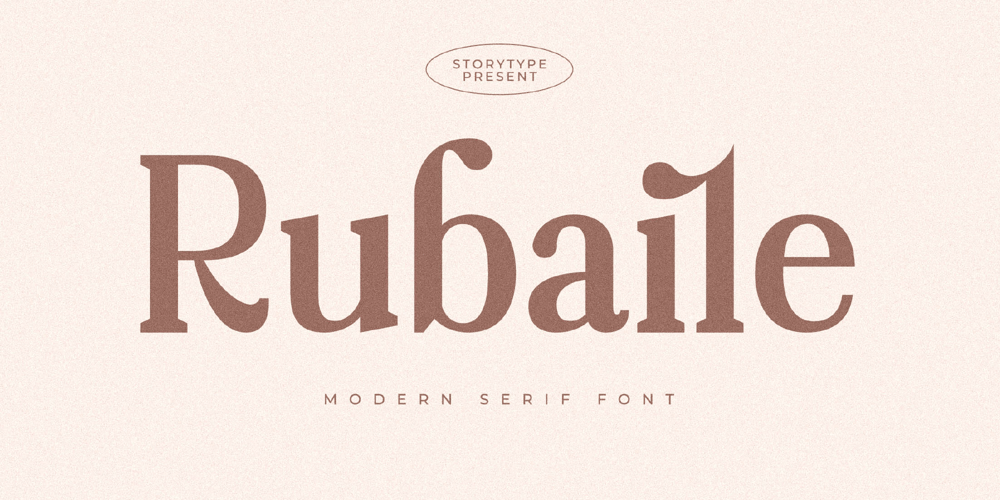
Rubaile Font Family was designed by Heru Utama Putra and published by Letterena Studios. Rubaile contains 2 styles and family package options. Rubaile is a modern and stylish serif font. Its sophisticated and elegant style which still maintains a casual vibe is perfect for creating unique, stunning designs.